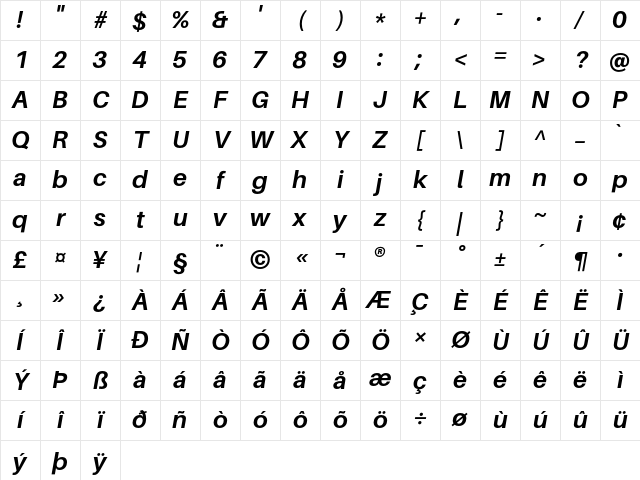
Aileron Bold Italic
Foundry: Sora Sagano
Designer: Sora Sagano
Design Context for Aileron
Aileron is a composed and adaptable typeface that performs quietly and consistently across a wide range of design contexts. The slanted form adds forward momentum and visual energy. Its bold stroke weight gives it real presence on the page.
Pro Tip: Use Aileron for emphasis, pull quotes, and subheadings where its slanted energy can add rhythm to the layout.